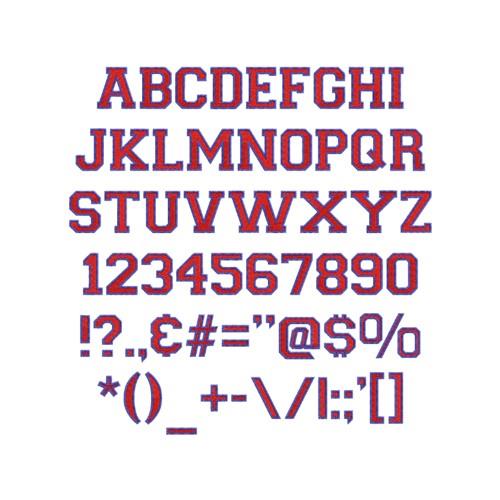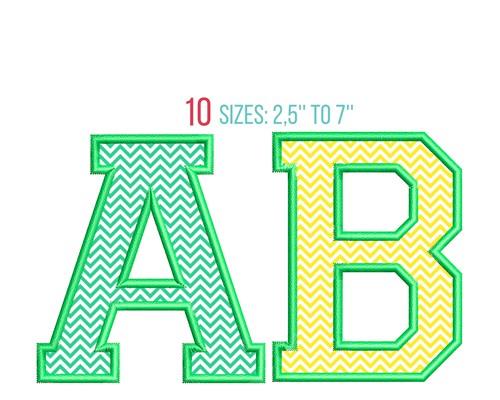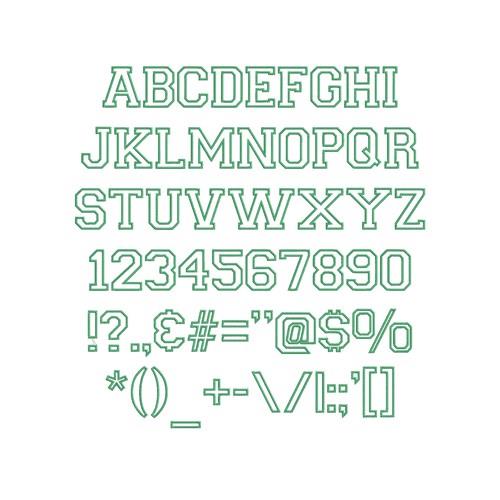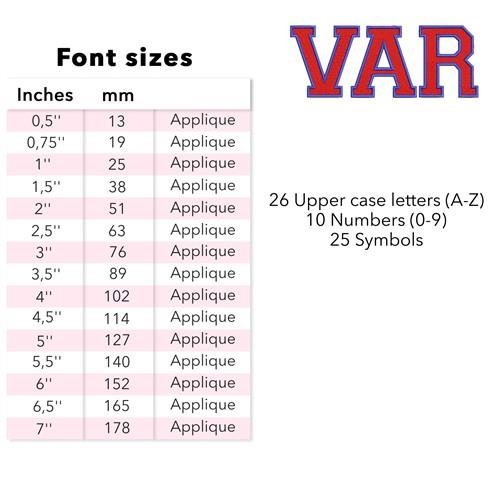
Maya Kreations is happy to present Varsity 2 Color Font machine embroidery font which has Bold collegiate varsity 2 color font ideal for jackets and team apparel. The vibrant red with contrasting outline pops on various surfaces. Available in PES, DST & 7 other machine embroidery font formats. included. If you would like to view more embroidery fonts and alphabets please search our embroidery fonts page.